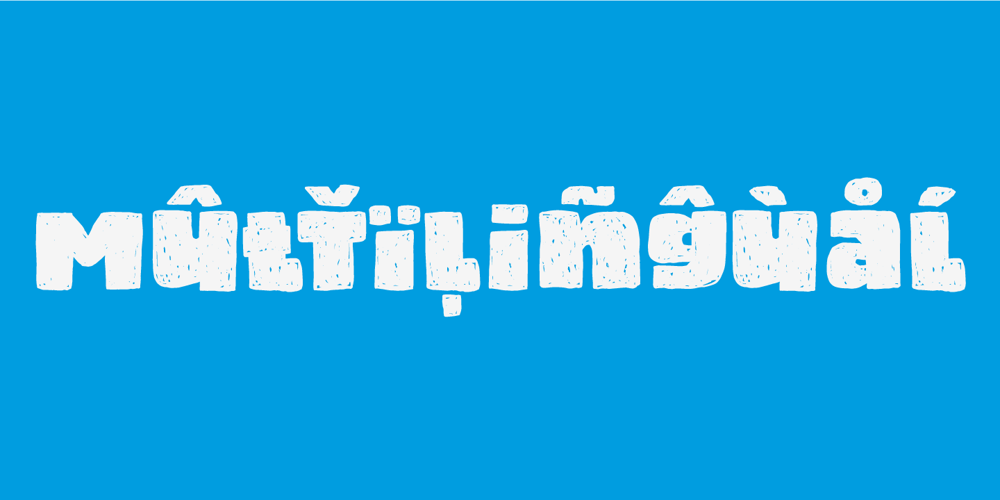
Flamingo Plush
Flamingo Plush font
Flamingo Plush Font Family was designed by Jakob Fischer and published by PizzaDude.dk. Flamingo Plush contains 1 styles and family package options. Flamingo Plush is something you want to use when you need your statement shouted out! The large, rough and worn letters will do the job for you – all you need to do is write your message! There is a slight difference in upper- and lowercase in a kind of unicase way. Some of the lowercase letters looks a bit more worn, when mixed with uppercase makes the handmade look really stand out! Go for something big, go for Flamingo Plush!